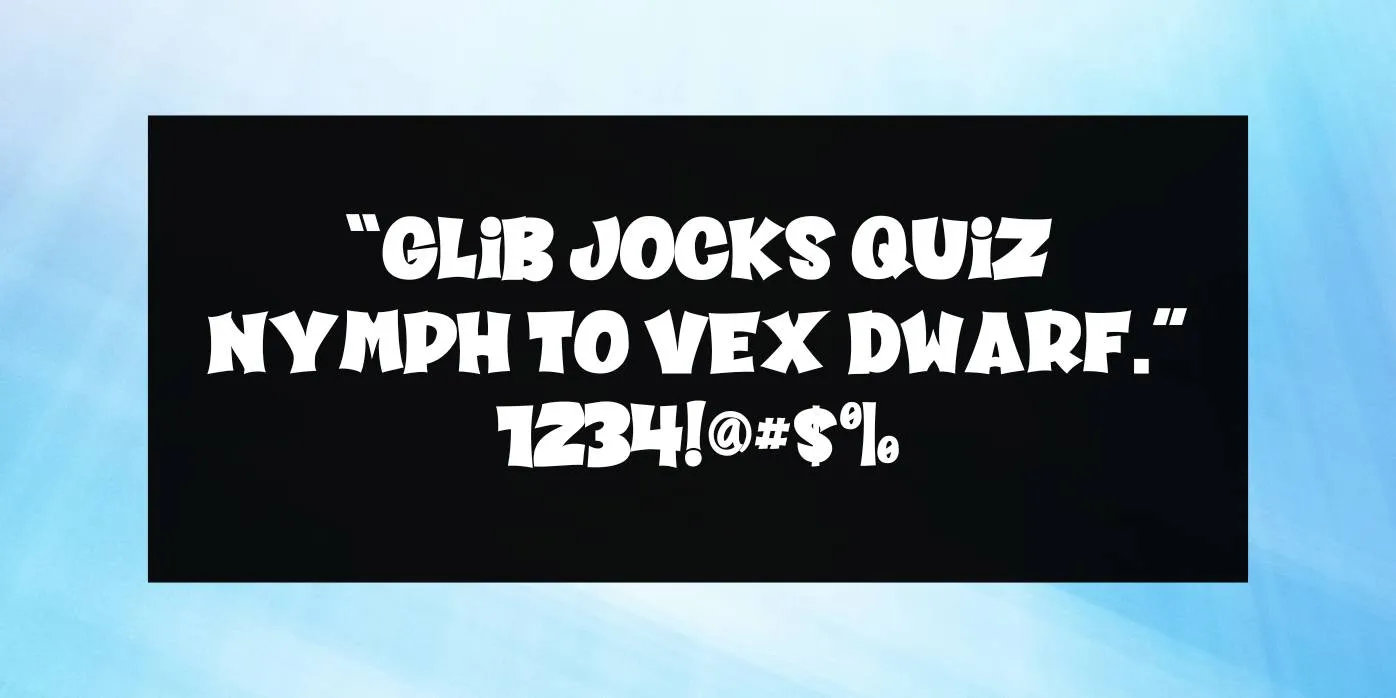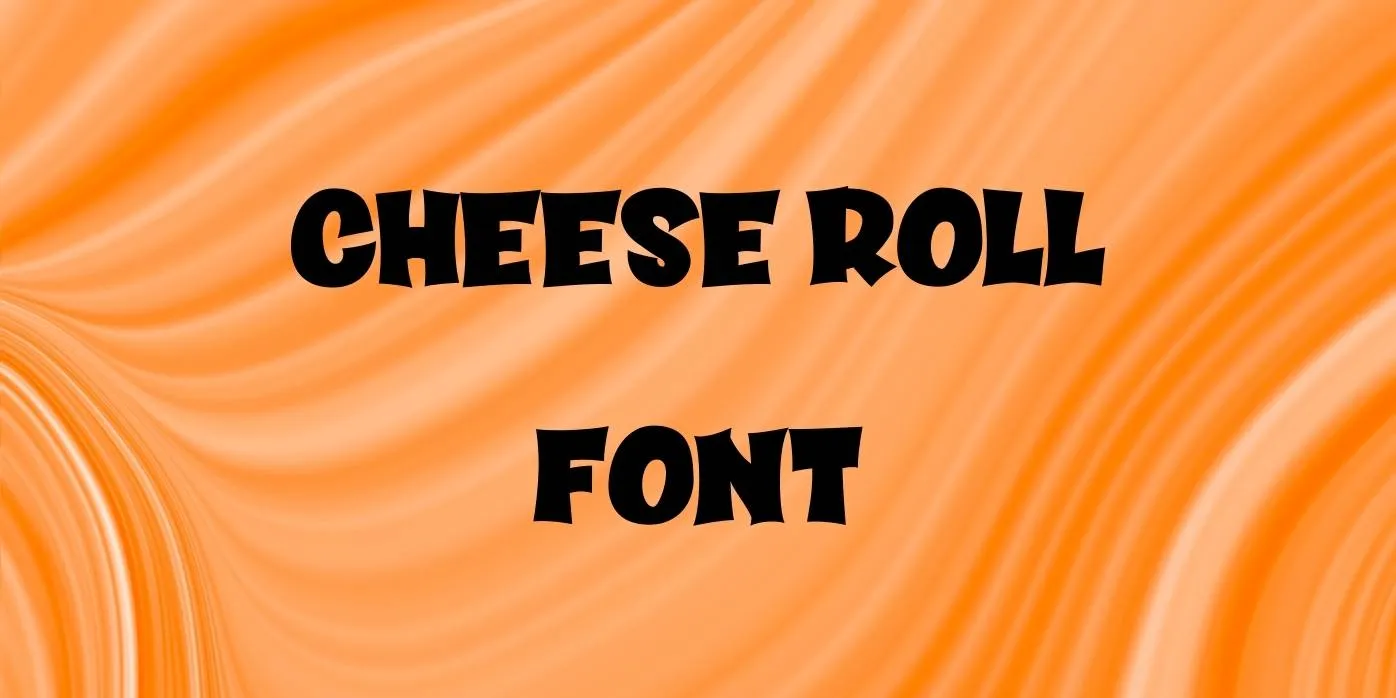
Cheese Roll Font
Cheese Roll Font is a fancy typeface that was created by Creativework69 Studio. This typeface has bold, attractive, classic, and clear characters. This typeface has some extraordinary properties. You can also easily generate it through an online font generator tool.
On the basis of some similarities and differences this typeface is is very awesome for pairing.